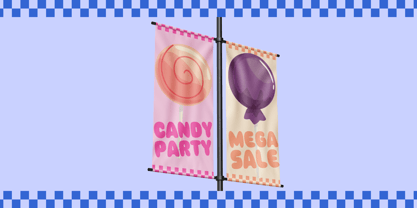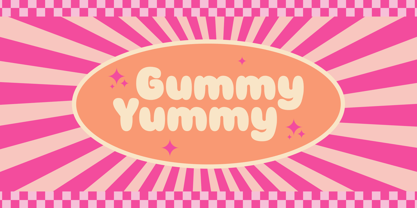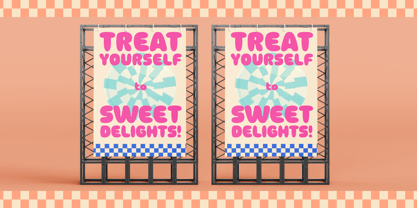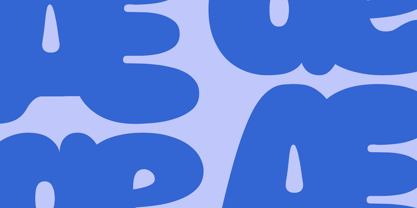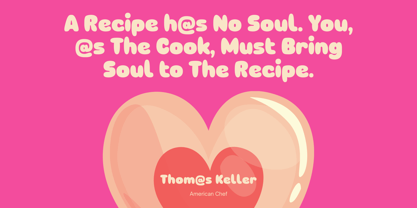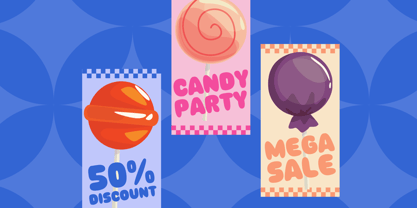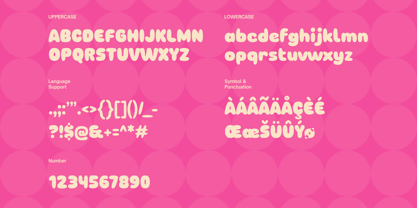
Gummy Yummy
by Coasta
The Gummy Yummy Font Family was designed by Panca Ahmadi Hasan and published by Coasta. Gummy Yummy contains 1 styles. More about this family
Unleash the sweetness of creativity with Gummy Yummy, our irresistible playful display font. Infused with whimsy and charm, this font transforms ordinary designs into vibrant works of art. Gummy Yummy is perfect for adding a playful touch to children's books, candy packaging, and whimsical branding. The delightful characters and unique design make every project a treat for the eyes. Embrace the joy of creativity and let Gummy Yummy be the delectable choice for your next design adventure !
Designers: Panca Ahmadi Hasan
Foundry: Coasta